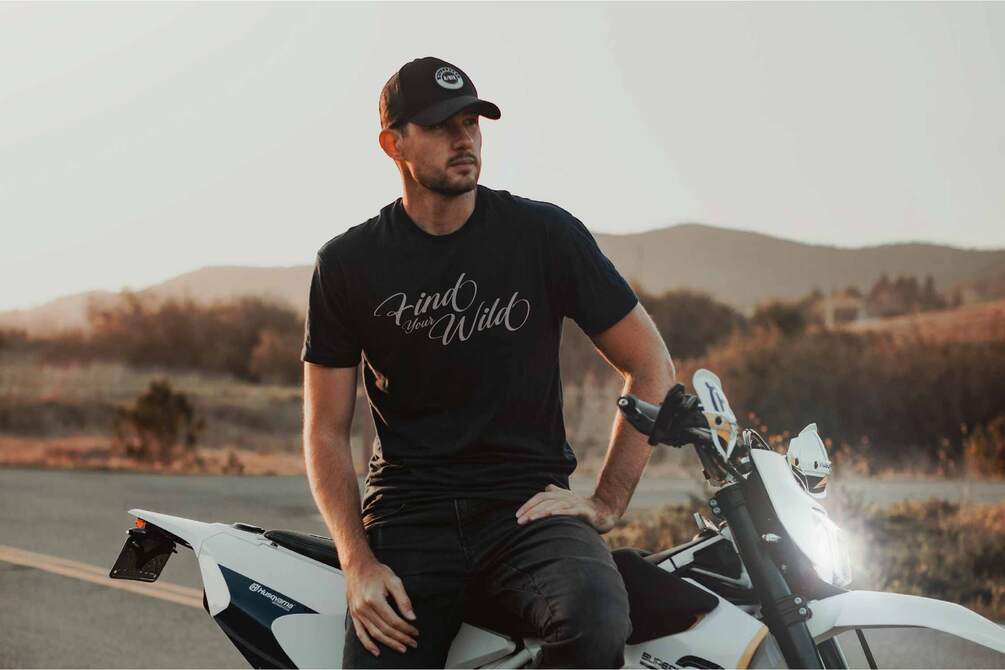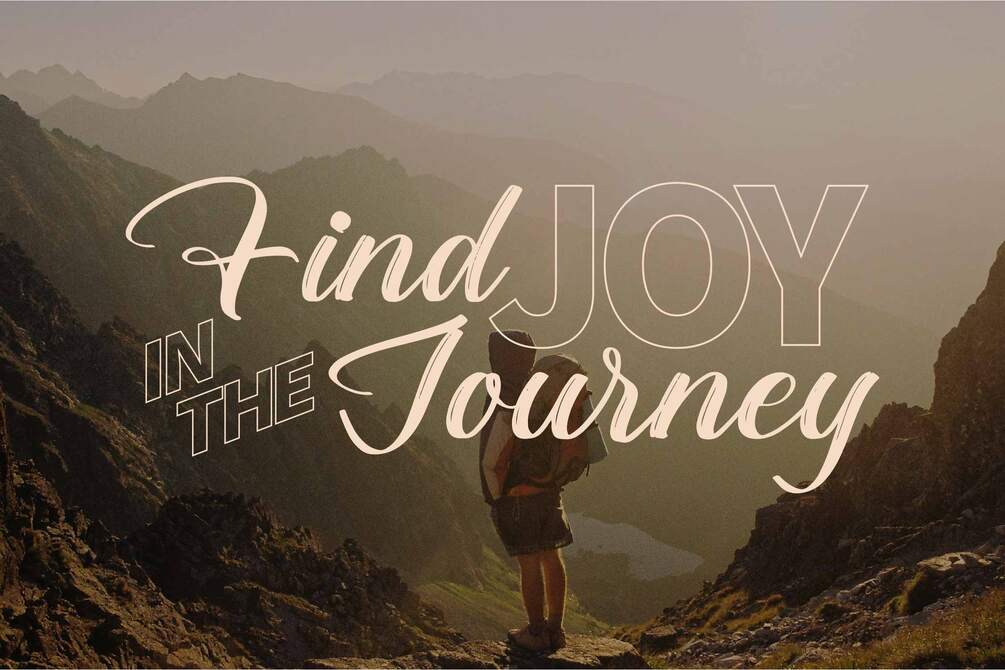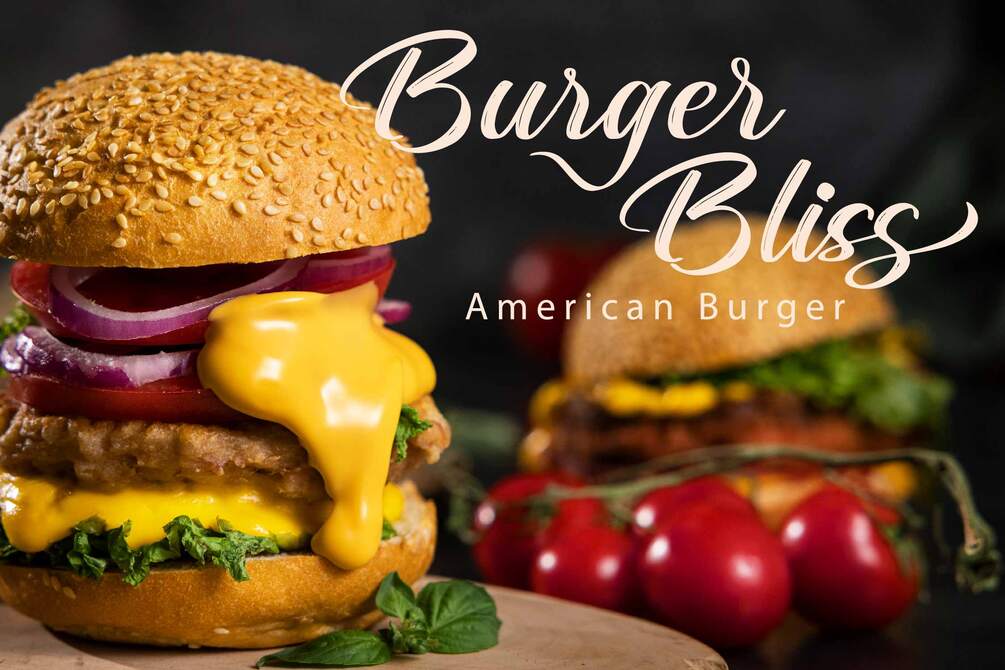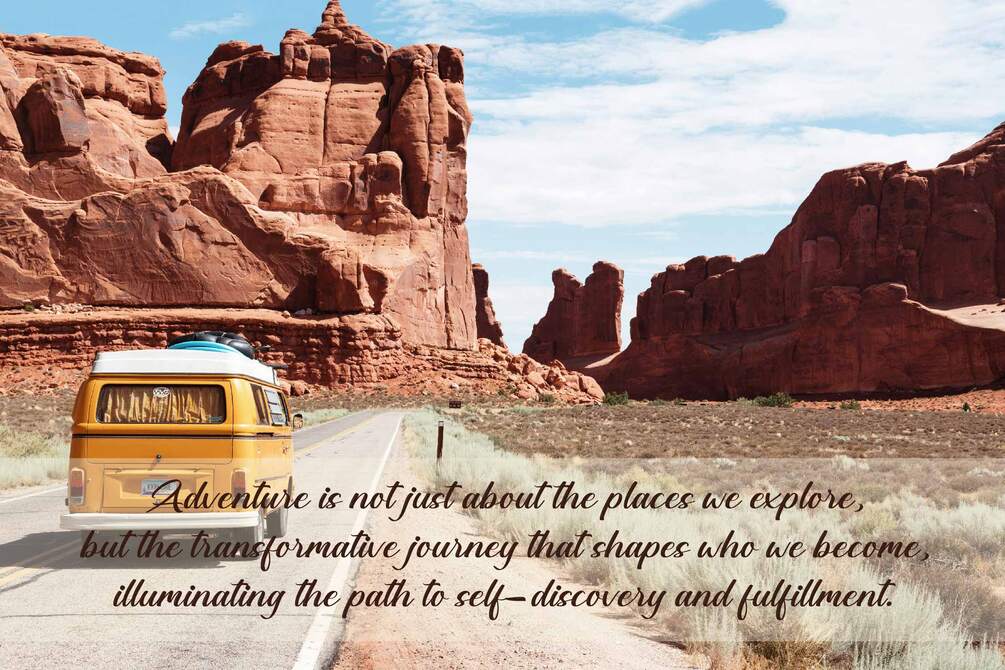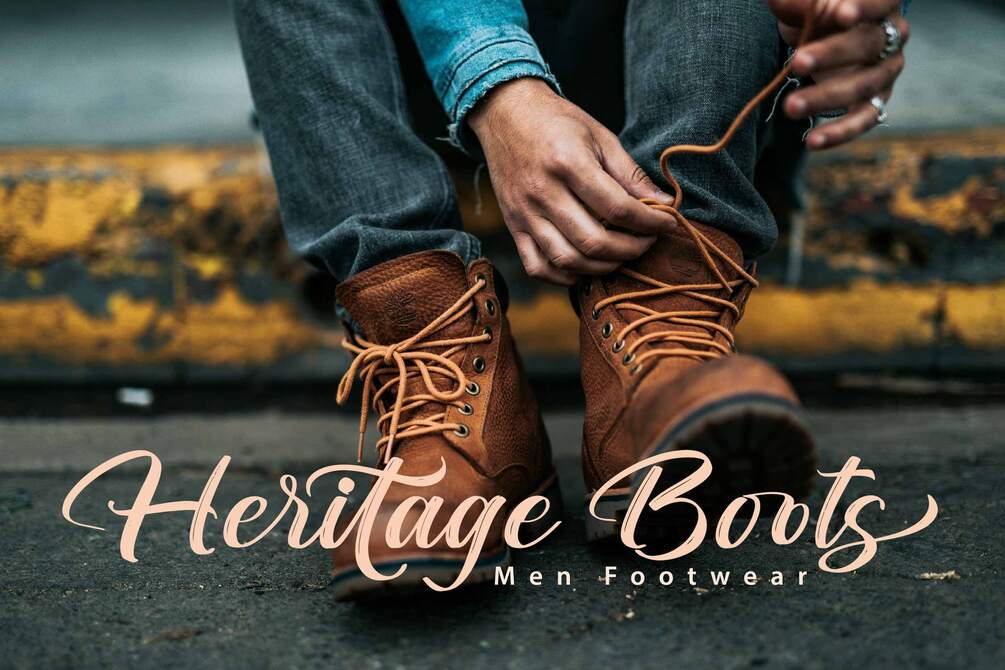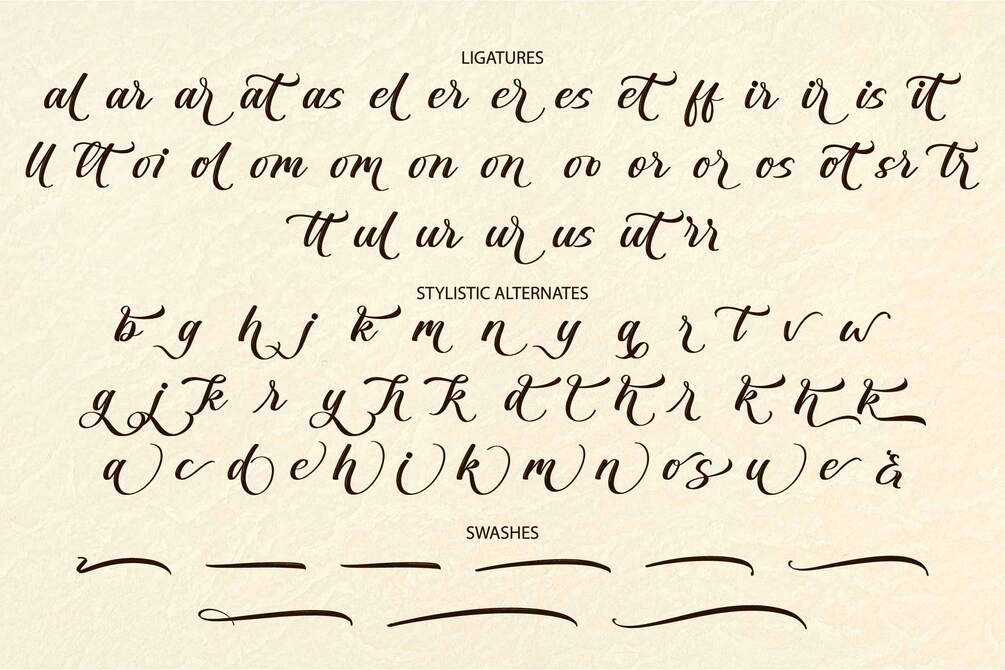
Rusted Braves - Textured Brush Script Font
Rusted Braves is a versatile handwritten textured brush font that combines a casual, natural style with expressive moods ranging from relaxed to artistic. Ideal for logos, quotes, and product packaging, it includes alternates, ligatures and supports multiple languages. Created by Graha Type, it enhances visual appeal and impact across various design projects.
• Standard Glyphs
• Alternates and Ligatures
• Multilingual Support